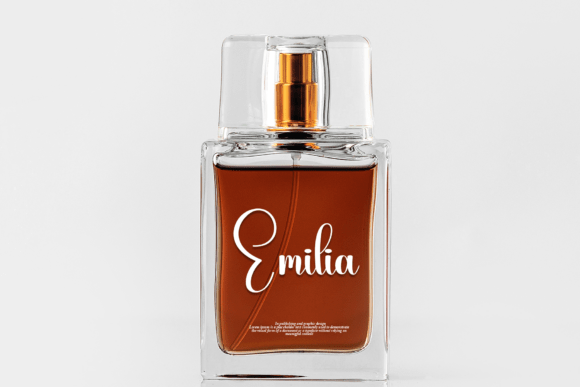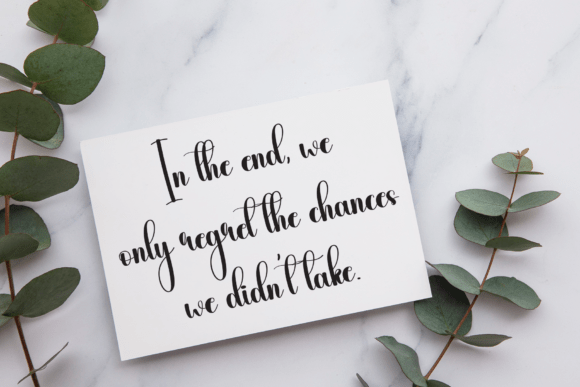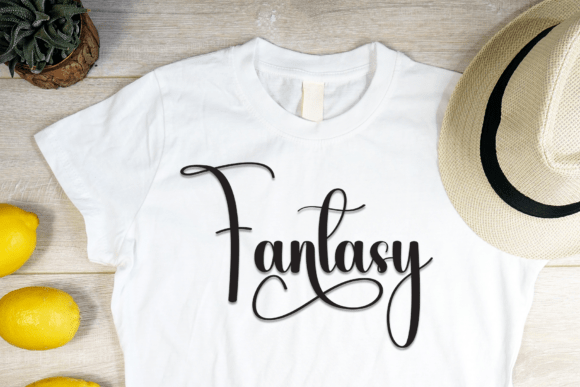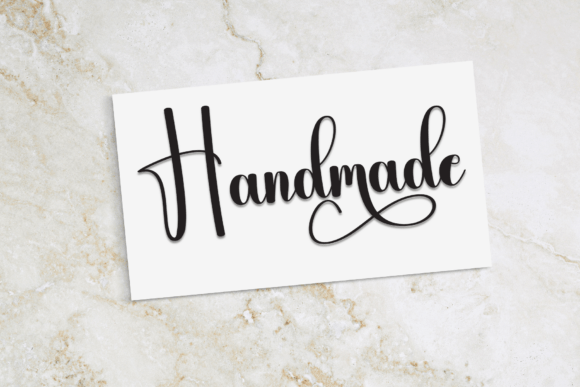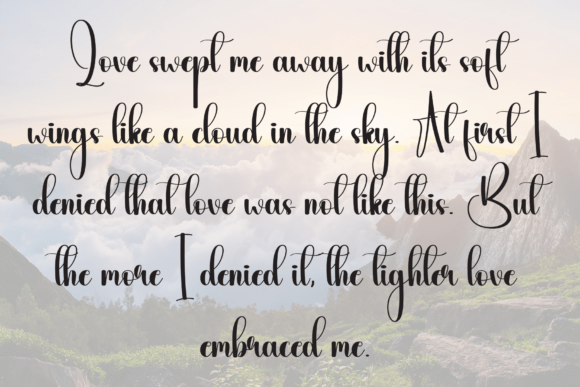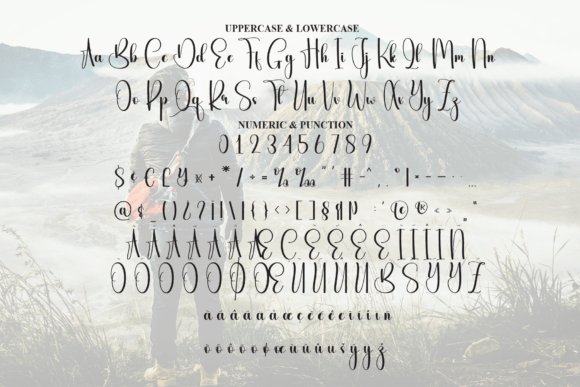
The Perfect Font for Your Next Creative Quest
Have you ever stared at a blank page, feeling the creative juices flowing, but struggling to find the right words to bring your vision to life? That’s where the magic of typography comes in – a well-chosen font can transport your message to a new level of elegance and sophistication.
Enter Adventure Font, a stylish script font that embodies artistic flair and contemporary chic. With its fluid brush strokes and dynamic curves, it’s perfect for designers seeking to add a creative touch to their work. Whether you’re crafting a logo, designing an invitation, or creating social media graphics, Adventure Font delivers both visual impact and versatility. This versatile font is a valuable addition to any designer’s toolkit, offering a natural flow and vibrant character that elevates any project to new heights.
Adventure Font Key Features
- Font Family: Adventure Font offers a unique, hand-drawn design with a mix of modern and vintage elements.
- Character Set: Includes a comprehensive character set, covering Latin, Cyrillic, and Greek alphabets, as well as punctuation and symbols.
- Font Weight: Available in Light, Regular, Bold, and Black weights, allowing for flexible typography and design options.
Adventure Font Review
I must say, the Adventure Font has some fantastic features that make it a great choice for designers looking to create a sense of excitement and energy in their projects. ✨
- Unique Character Set: The font has a wide range of characters that add to its adventurous feel. From bold, adventurous fonts to cursive scripts, the font offers a lot of versatility.
- High-Quality Rasterization: The font’s rasterization is top-notch, making it perfect for digital projects where sharpness and clarity are crucial.
- Customization Options: The font offers a range of customization options, including bold, italic, and regular styles, making it easy to adapt to different design needs.
However, there are some limitations that I’d like to point out. ⚠️
- Limited Support for Non-Latin Scripts: Unfortunately, the font doesn’t support non-Latin scripts as well as I’d like, which can be a limitation for designers working with international clients.
- Some Characters May Appear Fuzzy: I’ve noticed that some characters, especially the more ornate ones, can appear fuzzy at smaller font sizes, which can affect readability.
Overall, I think the Adventure Font is a solid choice for designers looking to add a sense of excitement and energy to their projects. While it may not be perfect, its strengths outweigh its limitations, making it a great addition to any designer’s toolkit.
Adventure Font is ideal for creating bold, eye-catching titles and headings.
Use it to add a touch of adventure and excitement to your designs.
Pair Adventure Font with other bold, sans-serif fonts for a unique look.
Use it in posters, social media graphics, and other promotional materials to grab attention.
Alternatives to Adventure Font
Great Vibes Font is a modern, elegant, and cursive font that is perfect for creating a sense of adventure and playfulness. It is ideal for use in travel and tourism-related projects, as well as for creating a fun and lighthearted atmosphere. Compared to Adventure Font, Great Vibes Font has a more refined and sophisticated look, making it suitable for a wider range of applications.
Pacifico Font is a beautiful, elegant, and cursive font that is inspired by the Pacific Ocean. It is perfect for creating a sense of calmness and serenity, while still conveying a sense of adventure and exploration. Compared to Adventure Font, Pacifico Font has a more relaxed and laid-back feel, making it ideal for use in travel and tourism-related projects that focus on relaxation and leisure.
Carolyna Pro Font is a modern, elegant, and cursive font that is perfect for creating a sense of sophistication and refinement. It is ideal for use in luxury travel and tourism-related projects, as well as for creating a sense of adventure and exploration in a more high-end context. Compared to Adventure Font, Carolyna Pro Font has a more polished and refined look, making it suitable for use in premium and high-end applications.